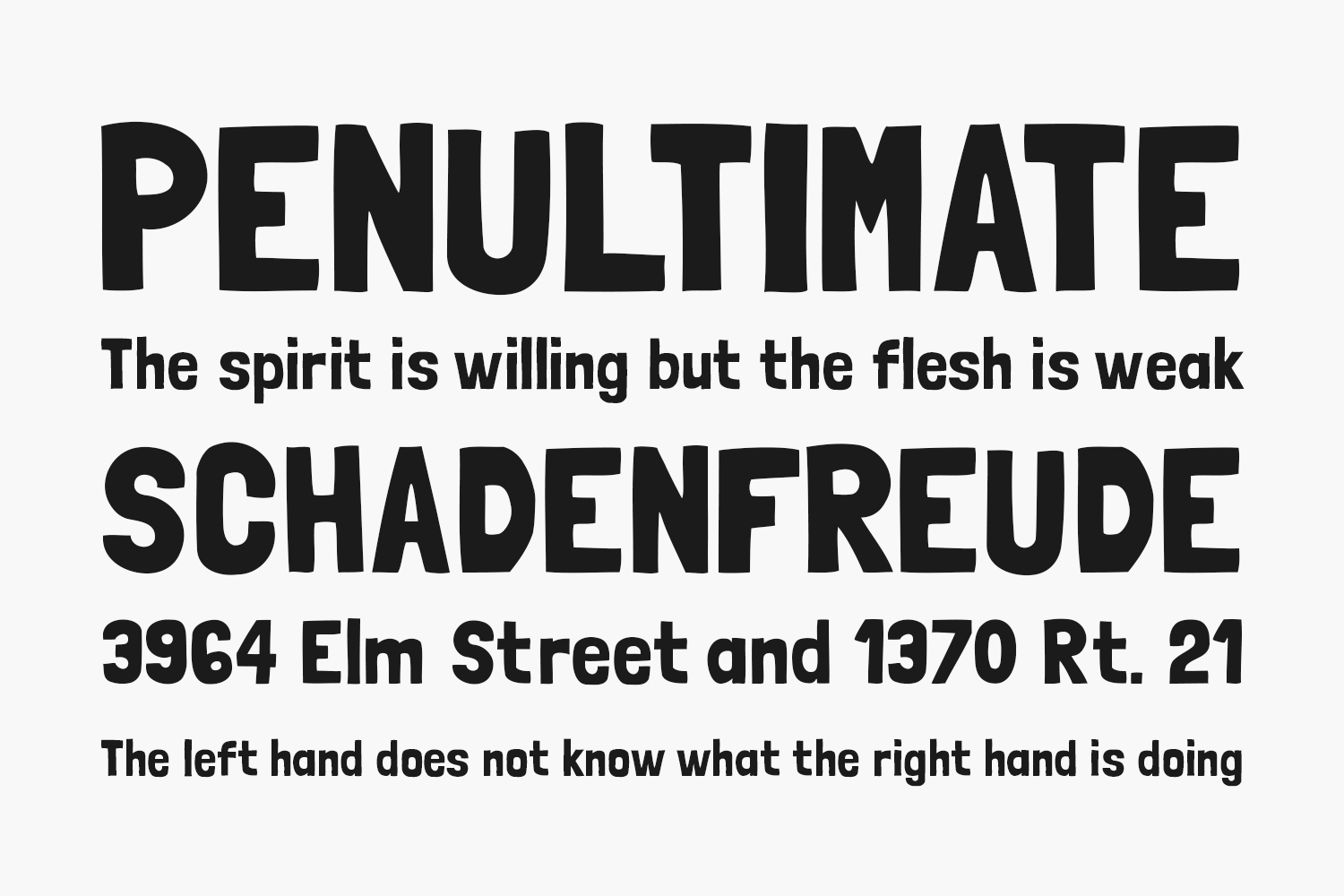
Londrina Free Font Family is composed of 4 family styles. You can combine the main style, Solid, with the others to create different effects.
Designed by Marcelo Magalhães